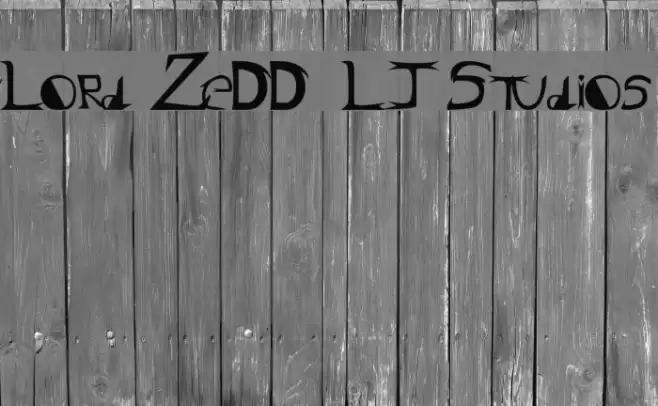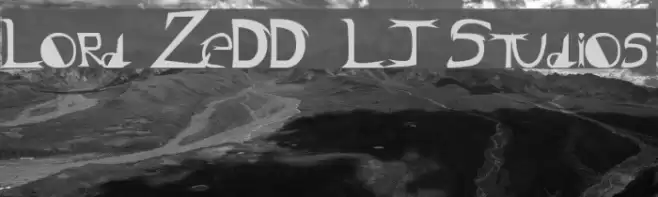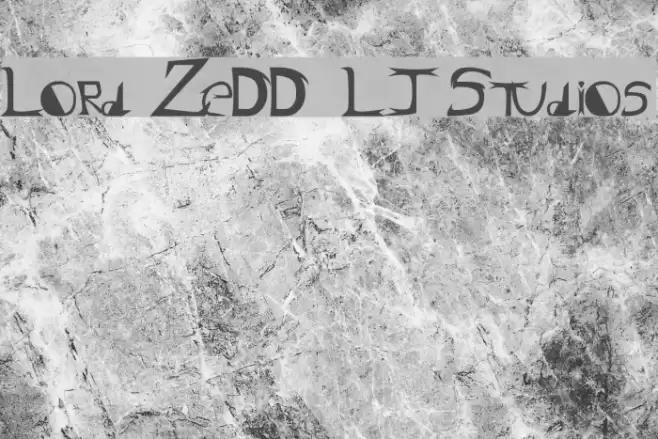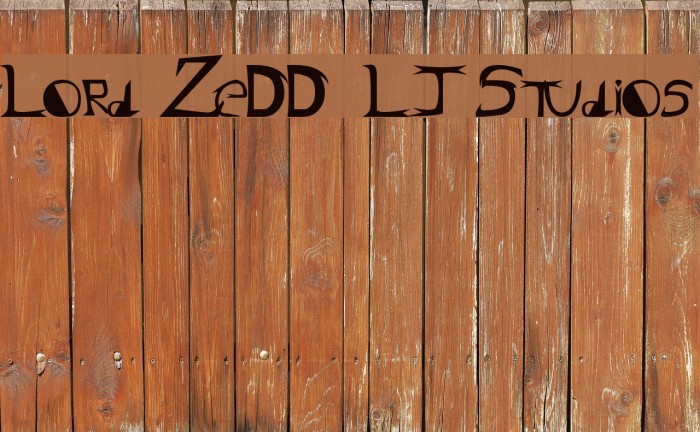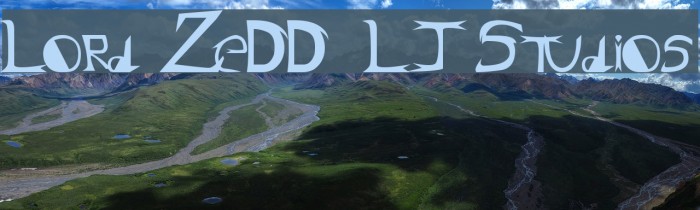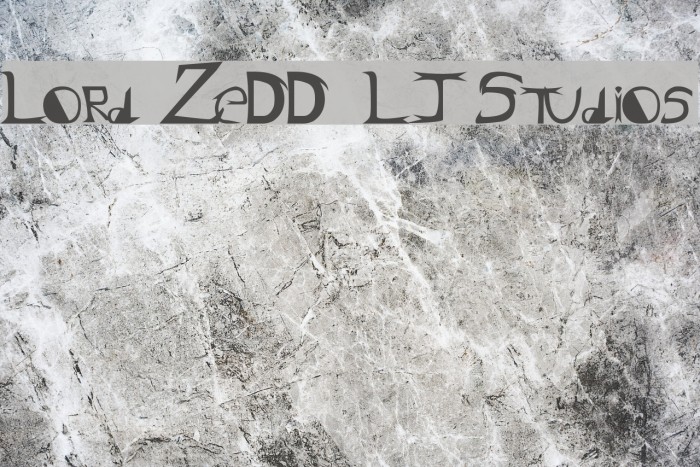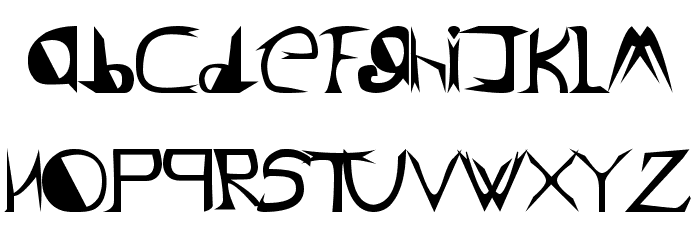
Lord ZeDD - LJ Studios Font
Lord ZeDD - LJ Studios Description
This font features a bold and aggressive design with sharp, angular edges and a distinct, edgy appearance. The characters are stylized with pointed tips and jagged elements, giving it a dynamic and intense look. The uppercase and lowercase letters maintain a consistent theme, with unique variations that add to the font's dramatic flair. The numbers and special characters follow the same design principles, ensuring uniformity across all glyphs. This font is ideal for projects that require a strong, impactful visual presence.
A bold, edgy font with sharp, angular design elements from Uncategorized fonts.
- Proposed Projects: Ideal for music album covers, video game titles, movie posters, and branding for edgy or alternative products.
- Overall Style: Modern, Edgy